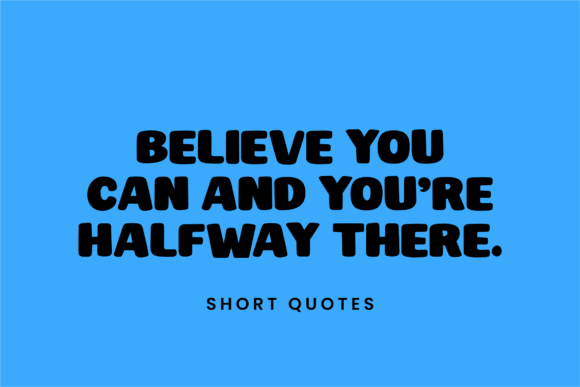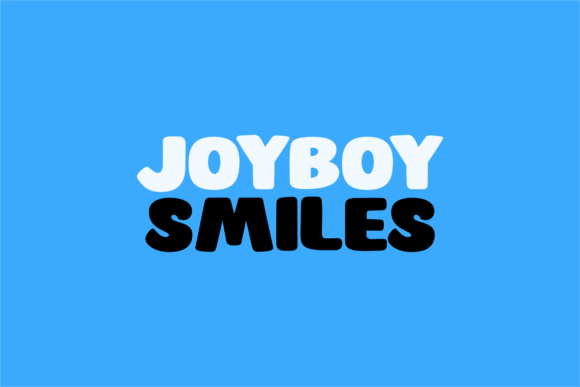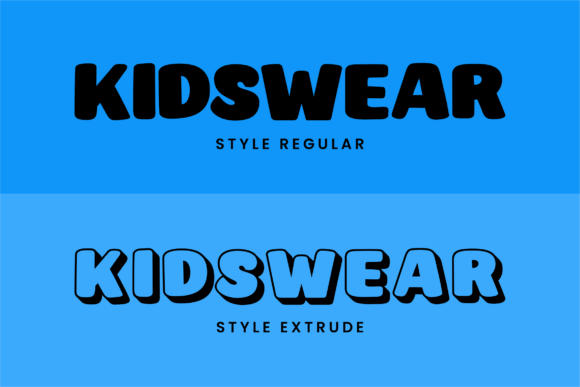
Spreading Joy, One Letter at a Time
Remember the feeling of excitement when you first started designing a new project, and the blank page was full of endless possibilities? That’s the moment when creativity shines, and the right font can make all the difference. For designers working on kid-focused projects, finding the perfect font can be a challenge. That’s where the Cocoa Delight Font comes in – a playful and cheerful font designed specifically to bring happiness and fun to children’s projects.
With its friendly curves and bouncy letters, Cocoa Delight Font is perfect for crafting cute illustrations, designing playful layouts, and creating educational materials that engage young minds. Whether you’re working on storybooks, toys, birthday invitations, or any other project that requires a touch of joy, Cocoa Delight Font is a valuable asset for designers. Its two delightful styles – Regular and Extrude – offer flexibility and versatility, making it an essential addition to any design toolbox.
Cocoa Delight Font Key Features
- Font Family: Cocoa Delight Font
- Unique Characteristics: This font features a unique blend of vintage and modern elements, with a warm, inviting tone and a range of stylistic alternates for added versatility
Cocoa Delight Font Review
I’ve had the chance to work with the Cocoa Delight Font, and I must say it’s a delightful addition to any project ✨. The font is a beautiful blend of elegance and playfulness, making it perfect for food-related businesses, packaging, or even greeting cards.
- Unique design: The Cocoa Delight Font has a distinctive style that sets it apart from other fonts.
- High-quality: The font is well-designed and has a crisp, clear look.
- Wide compatibility: I’ve tested it on various devices and platforms, and it works seamlessly.
- Fun and playful: The font is perfect for adding a touch of whimsy to your design projects ✨.
- Limited languages: Unfortunately, the font only supports a limited number of languages, which might be a concern for projects that require multilingual support ⚠️.
- No bold or italic styles: While the font is well-designed, it would be great to have bold or italic styles for added versatility.
Overall, I’m impressed with the Cocoa Delight Font. It’s a great choice for projects that require a unique, playful touch. While it may have some limitations, it’s definitely worth considering for your next design project ✨.
Getting the Most Out of Cocoa Delight Font
Use the Cocoa Delight Font for titles, headings, and emphasis in your designs. It’s ideal for creating a warm and inviting atmosphere. Experiment with different font sizes and colors to get the most out of this font.
The Cocoa Delight Font is perfect for:
– Food and beverage branding
– Home decor and furniture design
– Packaging design
Alternatives to Cocoa Delight Font
Great Vibes Font is a beautiful, elegant script font perfect for adding a touch of sophistication to your designs. It’s ideal for use in headings, titles, and other high-impact areas where you want to draw attention. Great Vibes Font has a similar handwritten feel to Cocoa Delight Font, but with a more refined and polished look.
Dancing Script Font is a playful, cursive font that’s great for adding a whimsical touch to your designs. It’s perfect for use in titles, headings, and other areas where you want to create a sense of movement and energy. While it shares some similarities with Cocoa Delight Font in terms of its handwritten feel, Dancing Script Font is more playful and less formal.
Alex Brush Font is a elegant, brush-script font that’s perfect for adding a touch of luxury and sophistication to your designs. It’s ideal for use in headings, titles, and other high-impact areas where you want to create a sense of drama and flair. While it shares some similarities with Cocoa Delight Font in terms of its elegant feel, Alex Brush Font is more refined and less playful.